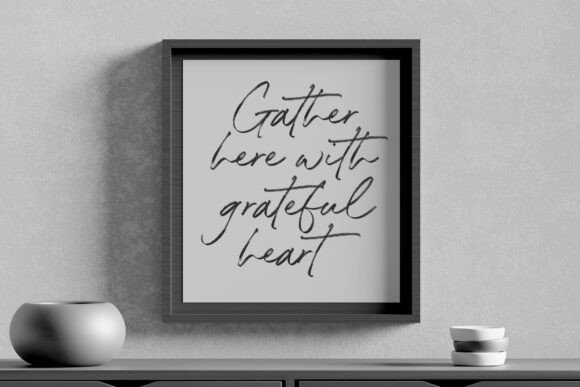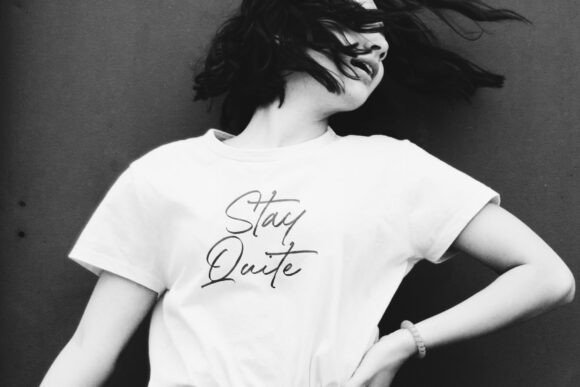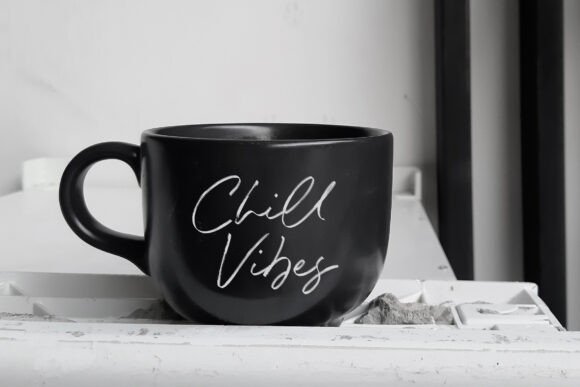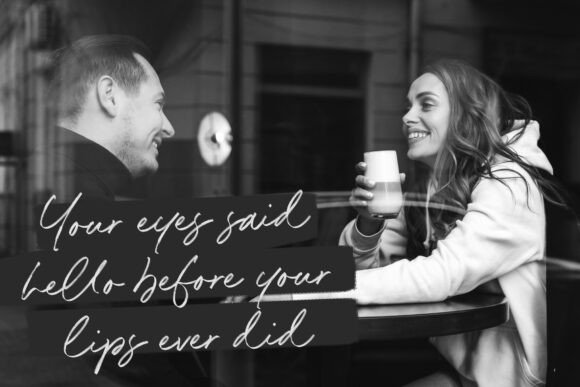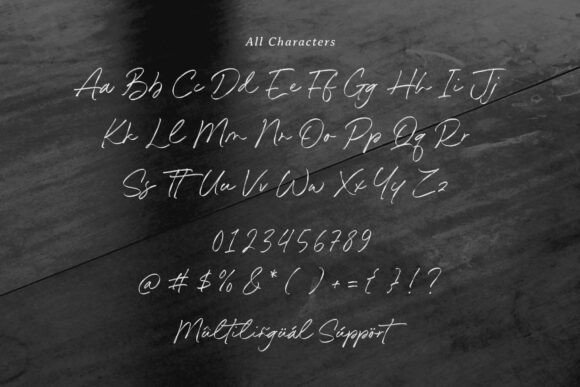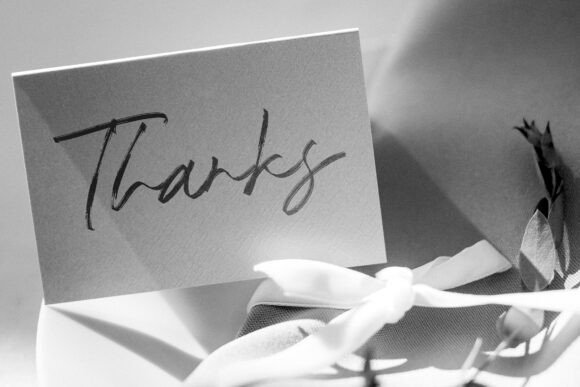
The Designer’s Delight: Brigetta Rumble Font
I’ll never forget the time I was working on a branding project for a trendy boutique, and I just couldn’t find the right font to capture their unique vibe. The client wanted something modern, elegant, and playful, but not too over-the-top. I scoured the internet, tried out dozens of fonts, and still, nothing seemed quite right. That was until I stumbled upon Brigetta Rumble – a stylish handbrushed script font that instantly won me over.
So, what makes Brigetta Rumble so special? Let’s dive into the good stuff and a few quirks I’ve discovered.
- ✨ Modern elegance: Brigetta Rumble combines bold strokes with fluid, natural curves, giving it a fresh and sophisticated look.
- ✅ Handcrafted feel: The organic brush style adds a touch of whimsy and personality to any design.
- 💫 Versatility: This font is perfect for logos, branding, social media graphics, and artistic typography.
While Brigetta Rumble is an amazing font, there are a few things to keep in mind:
- ⚠️ Legibility at small sizes: Like many script fonts, Brigetta Rumble can be a bit tricky to read at very small sizes. Make sure to test it out at different scales to ensure it works for your project.
- 🤔 Pairing with other fonts: As with any bold font, you’ll want to choose complementary fonts that don’t compete with Brigetta Rumble’s personality. Experiment with different combinations to find the perfect match.
Brigetta Rumble was designed with the intention of capturing the essence of modern elegance and creative flair. Imagine a world where hand-painted signs and artistic typography come together to create something truly unique. The designer’s goal was to craft a font that would evoke the feeling of a bespoke, handcrafted piece of art – and I think they’ve succeeded!
Q: What type of projects is Brigetta Rumble best suited for?
A: Brigetta Rumble is perfect for logos, branding, social media graphics, and artistic typography. Its versatility makes it a great choice for a wide range of design projects.
Q: Is Brigetta Rumble suitable for body text or long-form content?
A: While Brigetta Rumble is a beautiful font, it’s best suited for headlines, titles, or short-form content. Its script style can be challenging to read in large blocks of text.